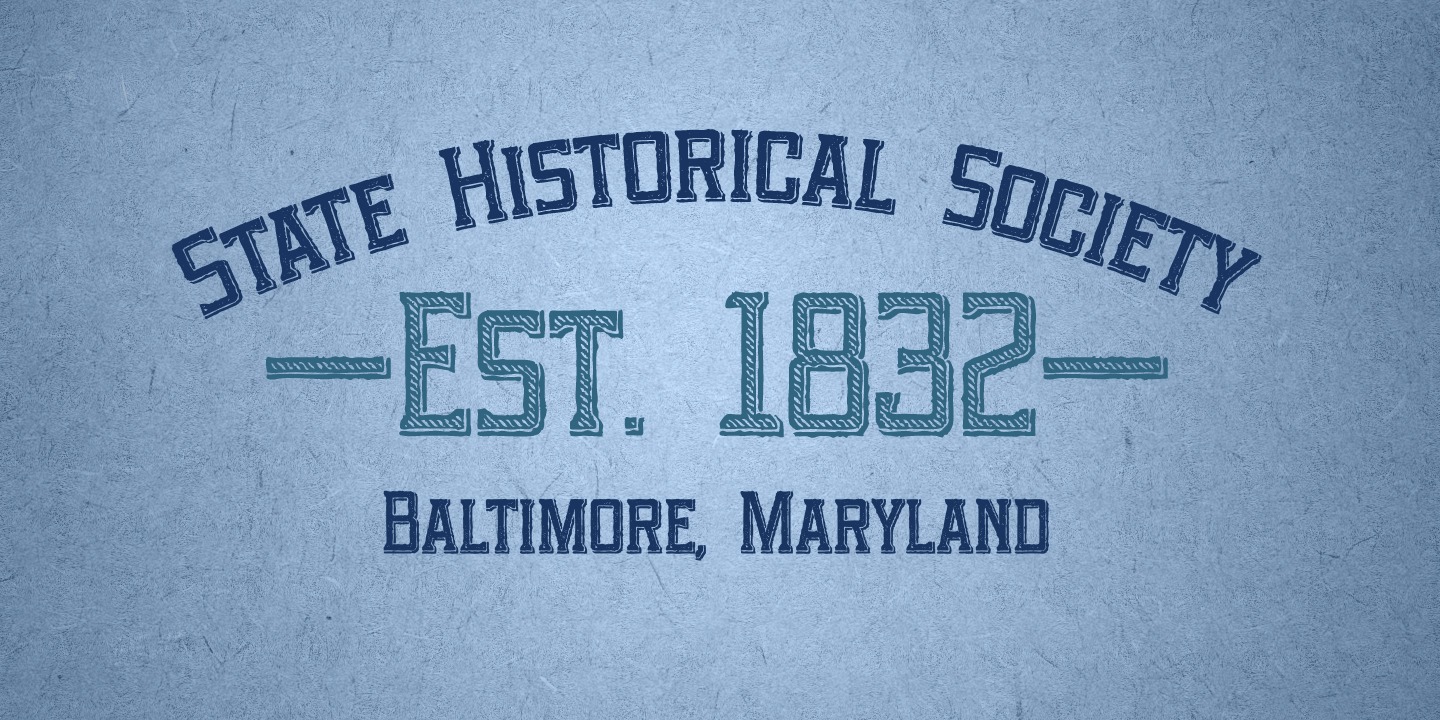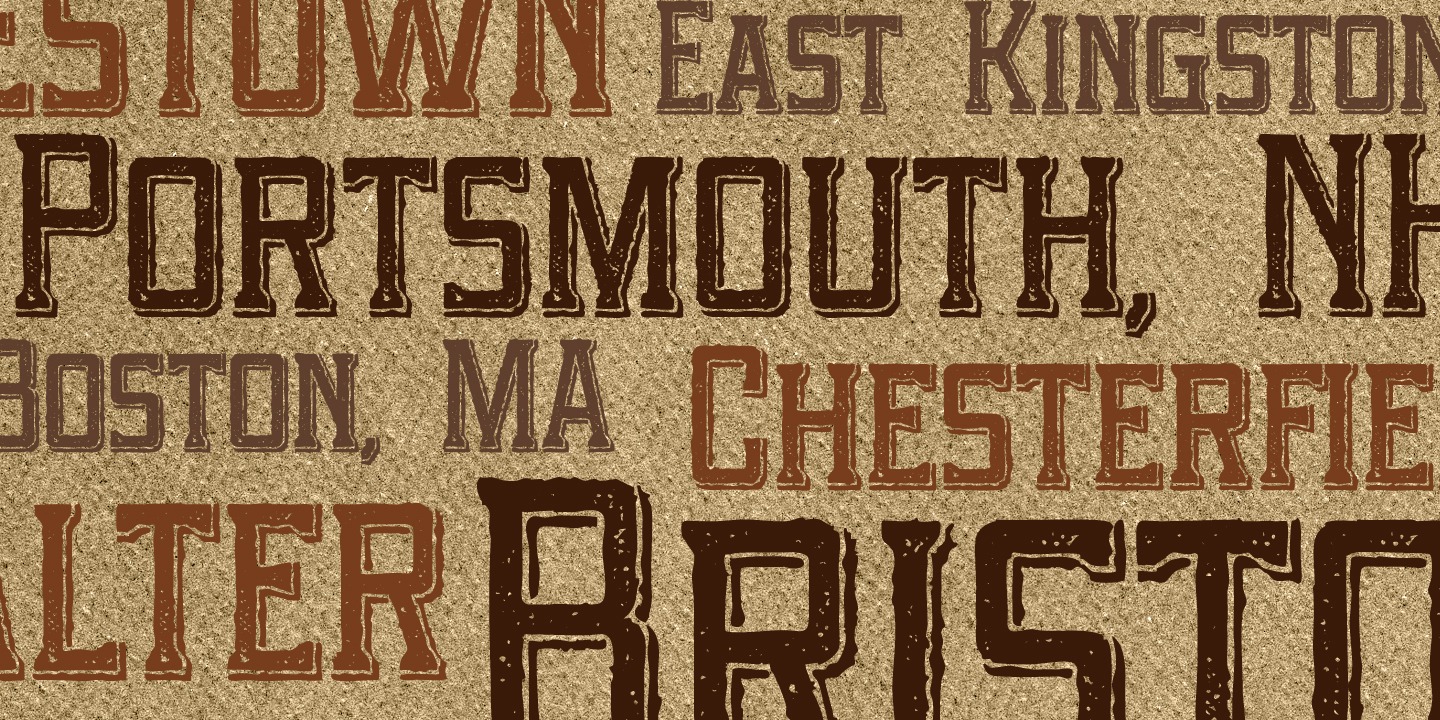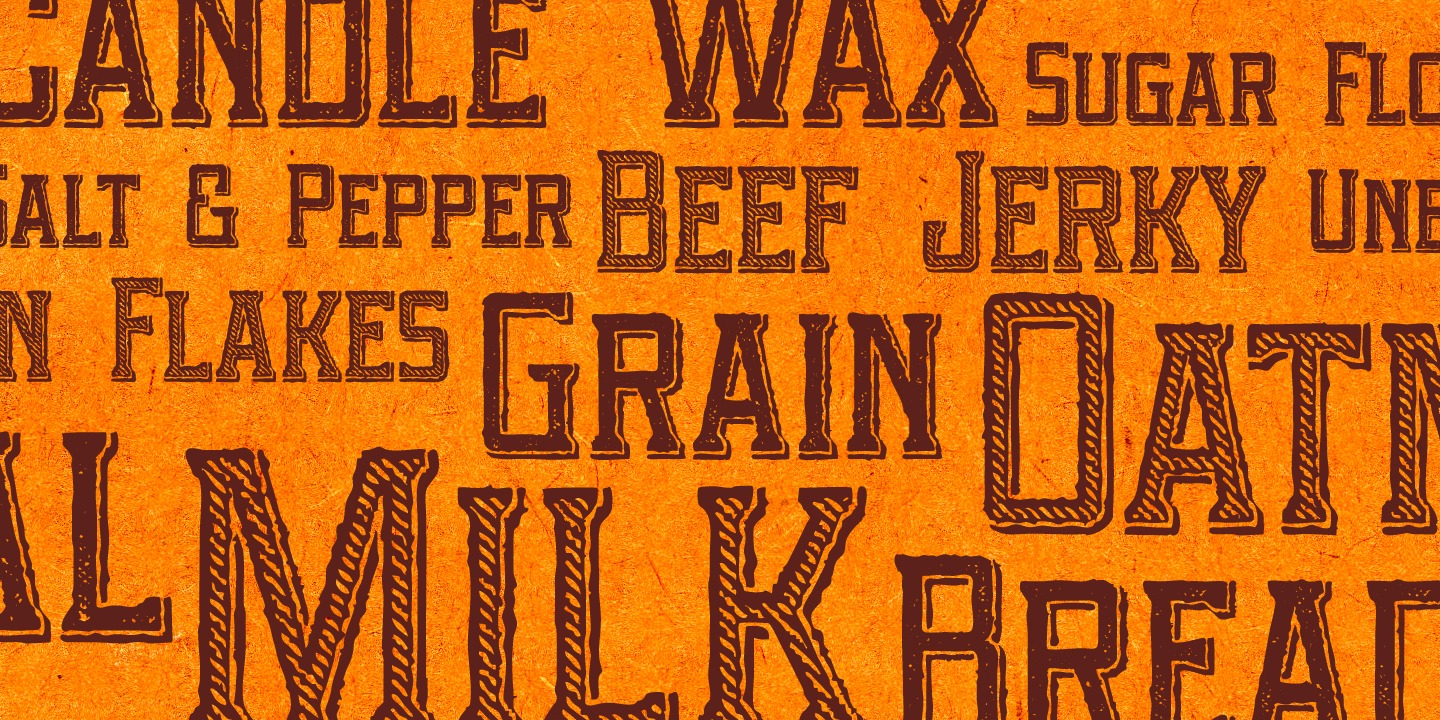
Portsmouth Second Fleet
Font Family by Open Window
Portsmouth Second Fleet is the rag tag, wild bunch companion to Portsmouth. It is a strong, sturdy typeface with historical character. Its inspiration comes from the height and strength of the wooden tall ships that sailed into port in their day. With caps and small caps, this typeface is great for headlines or subheads for design projects that need a historical or retro feel, such as from the 1940s and earlier. Five different styles that can be layered allow for different colored drop shadows, outlines and fill for even more customization.